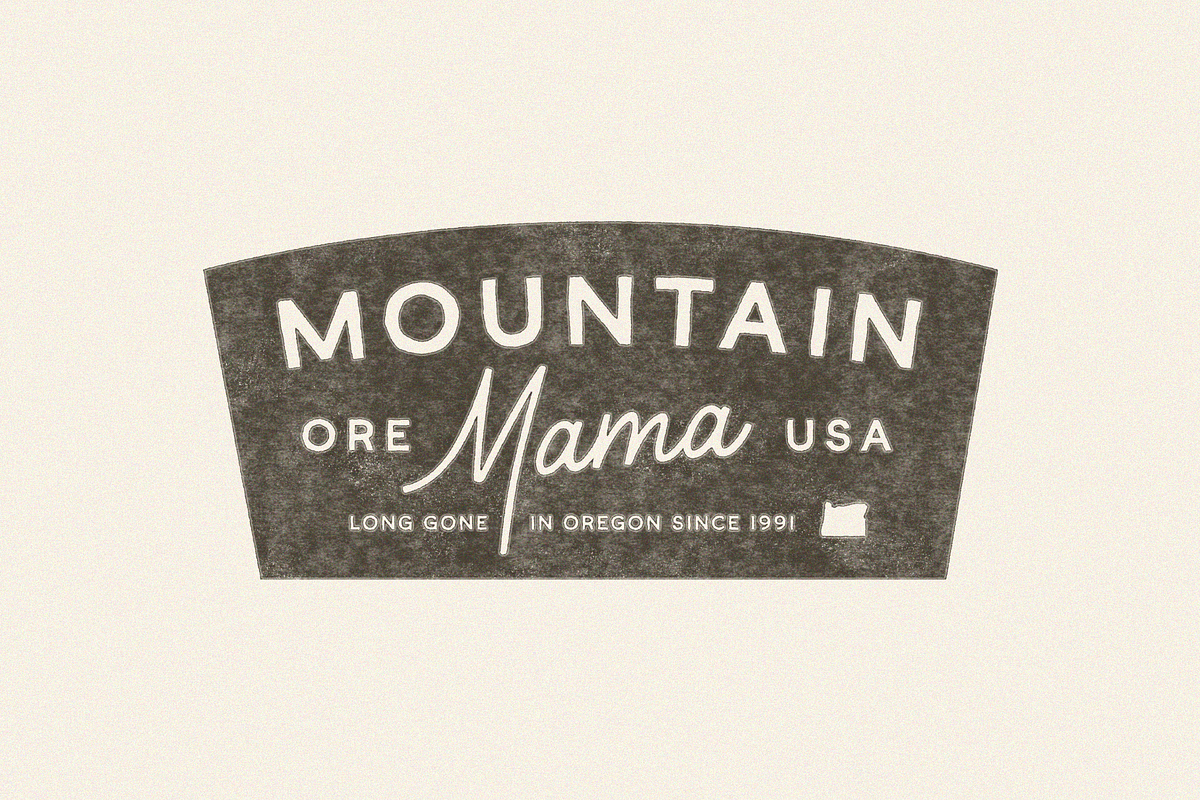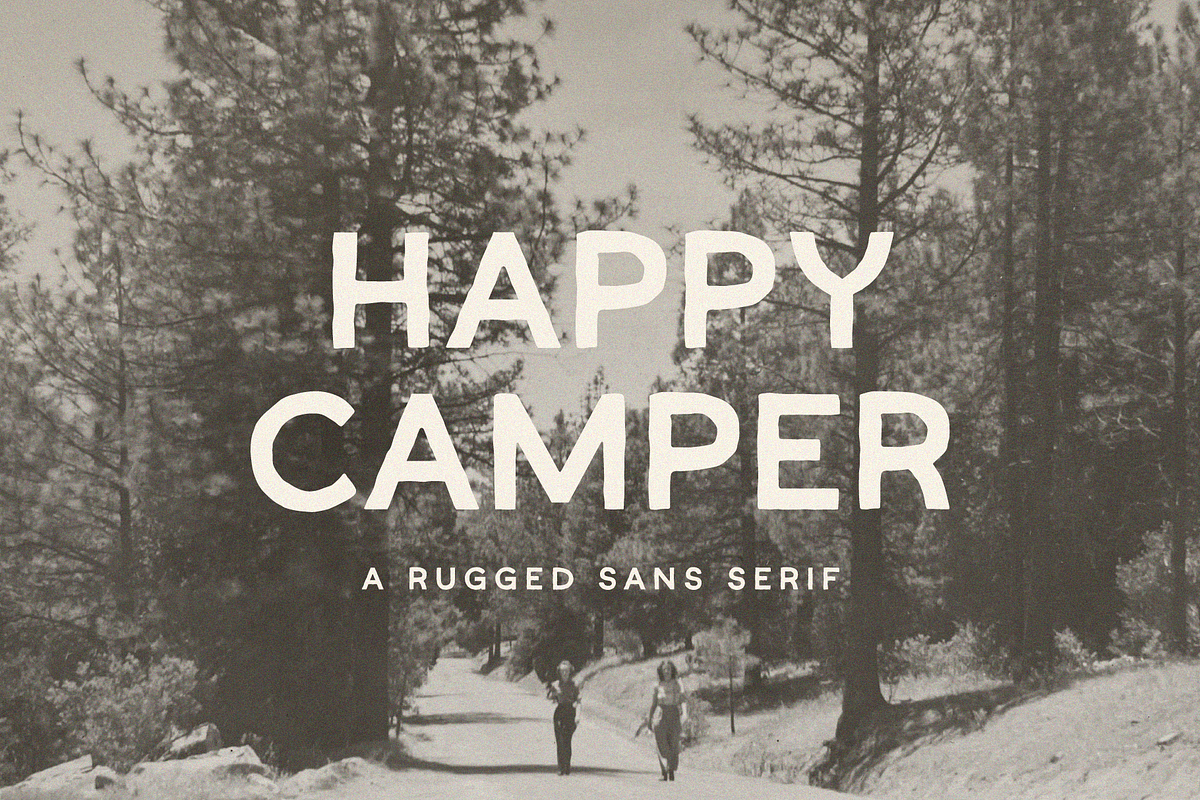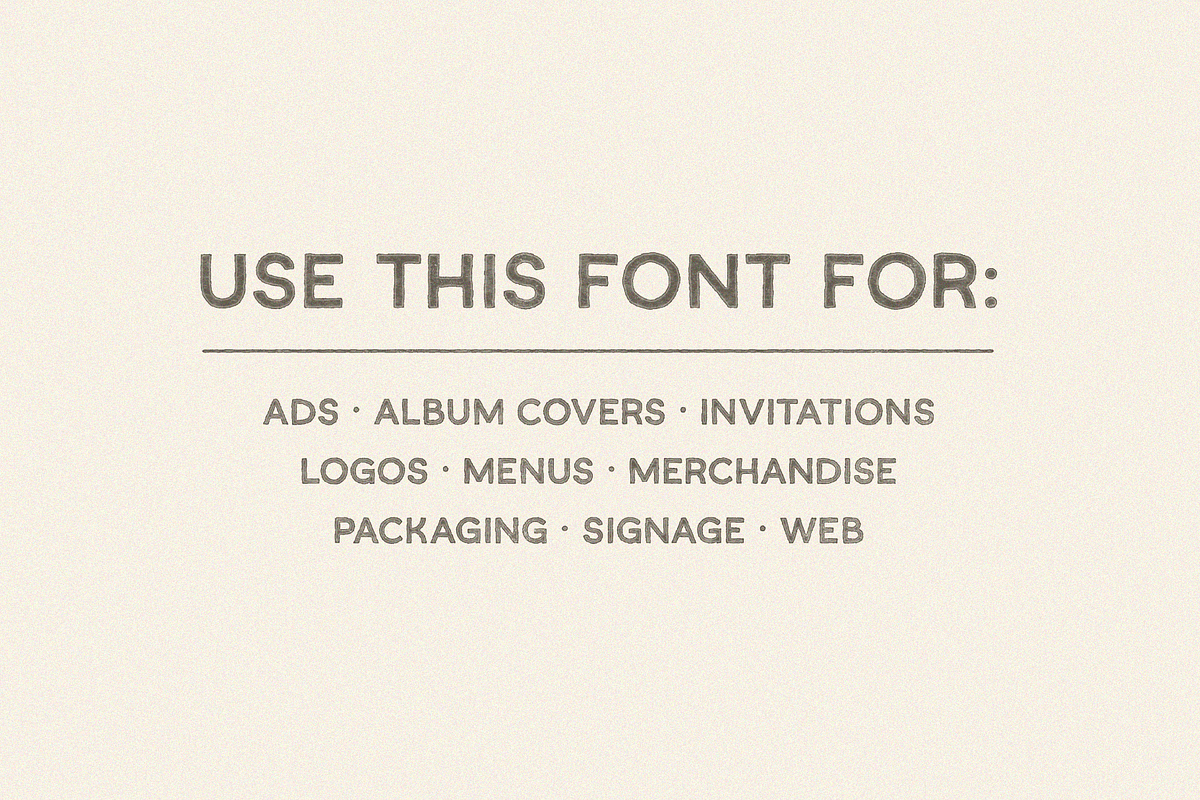
Happy Camper
HAPPY CAMPER – A rugged sans serif, inspired by the great Oregon outdoors.
- Uppercase letters ONLY
- Standard English alphabet
- Numbers, Symbols, Standard Punctuation